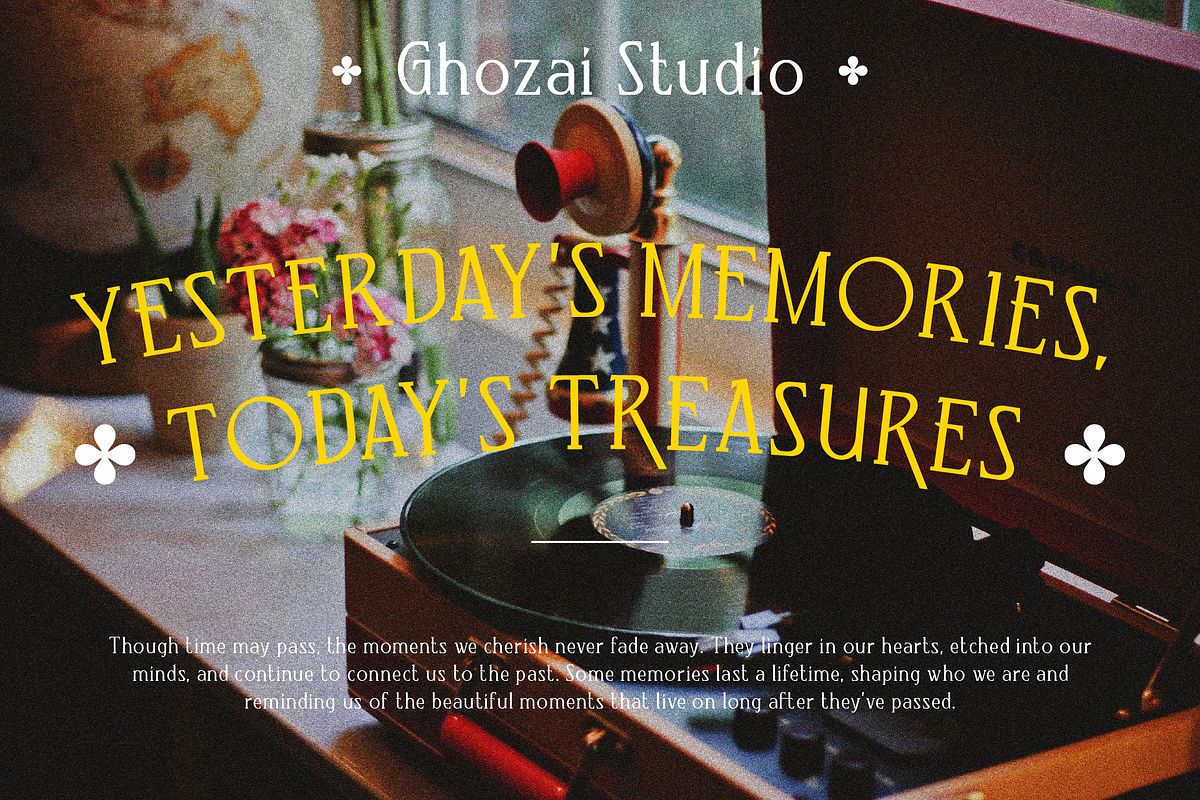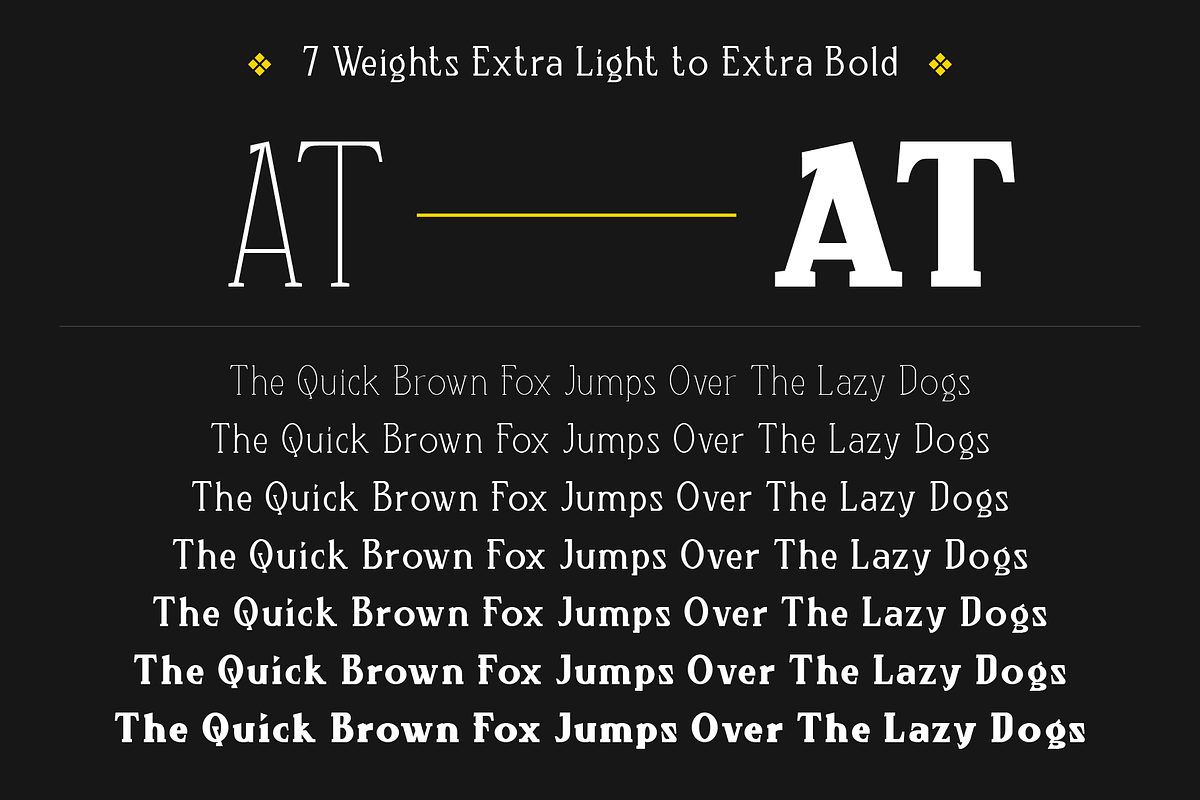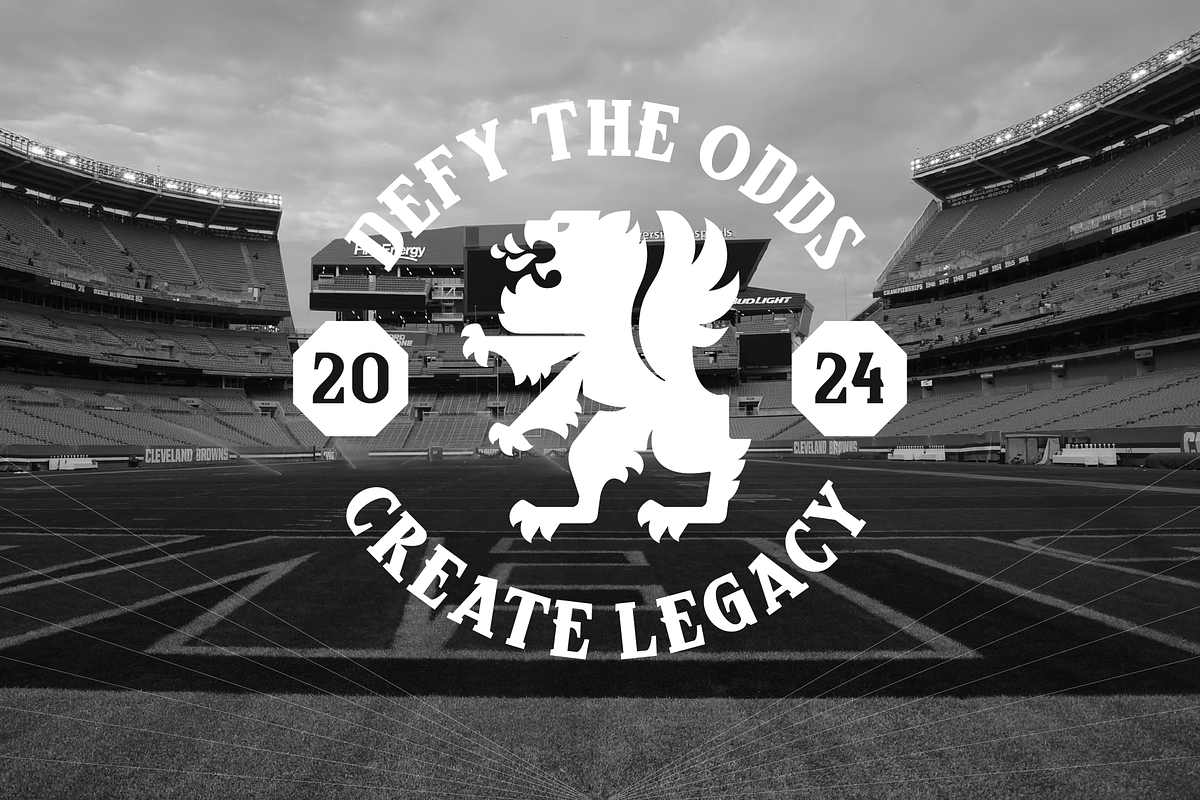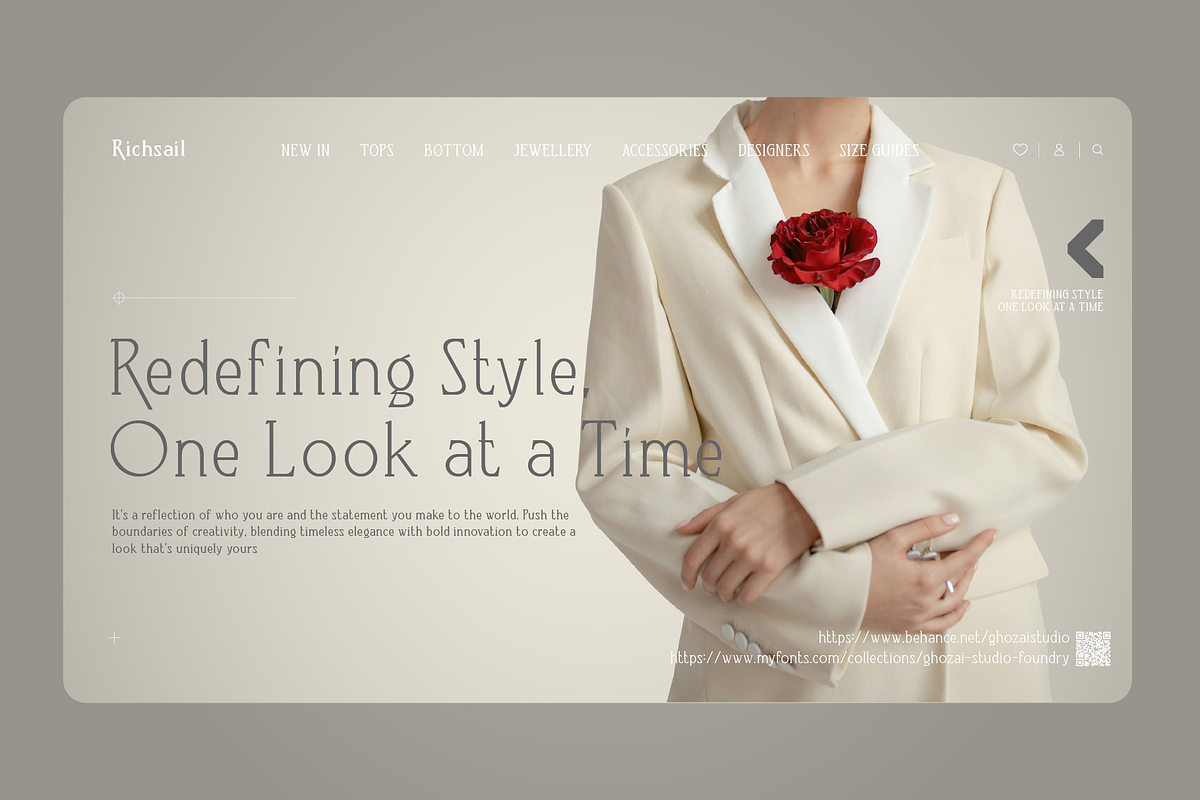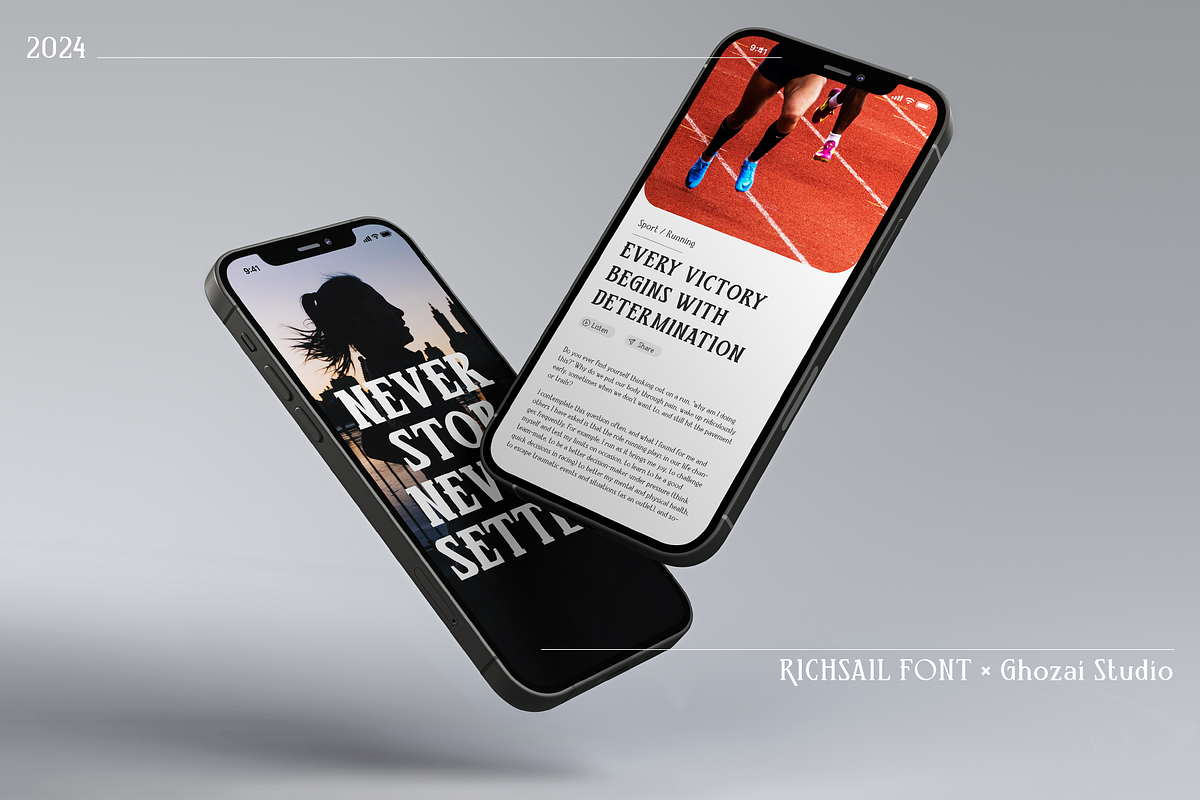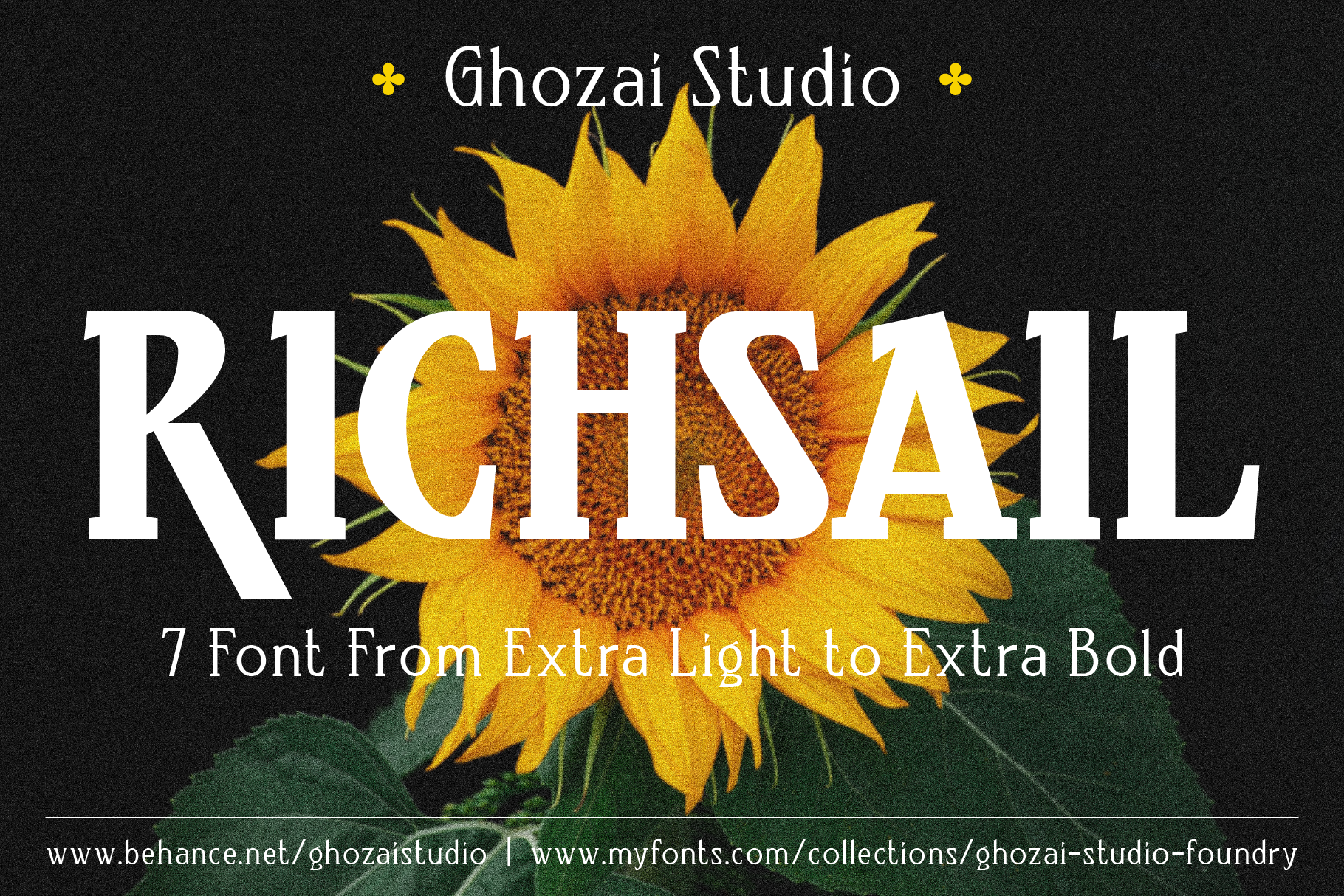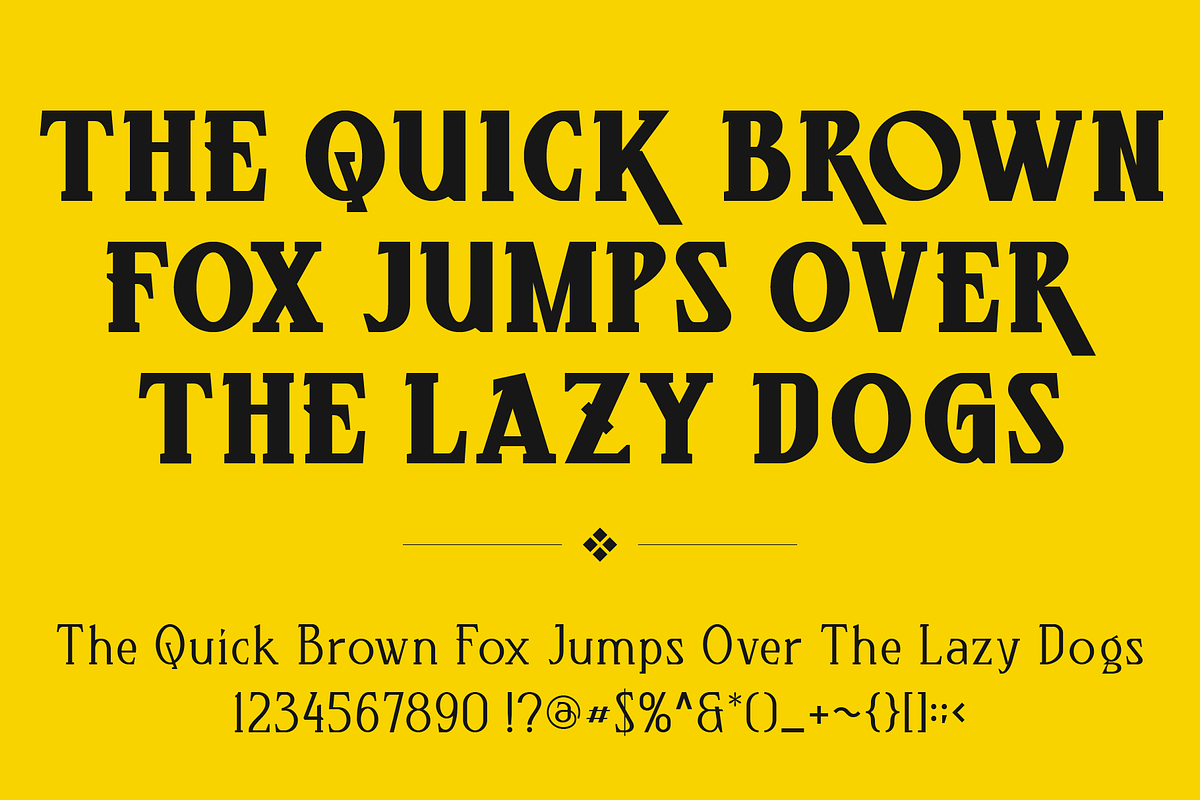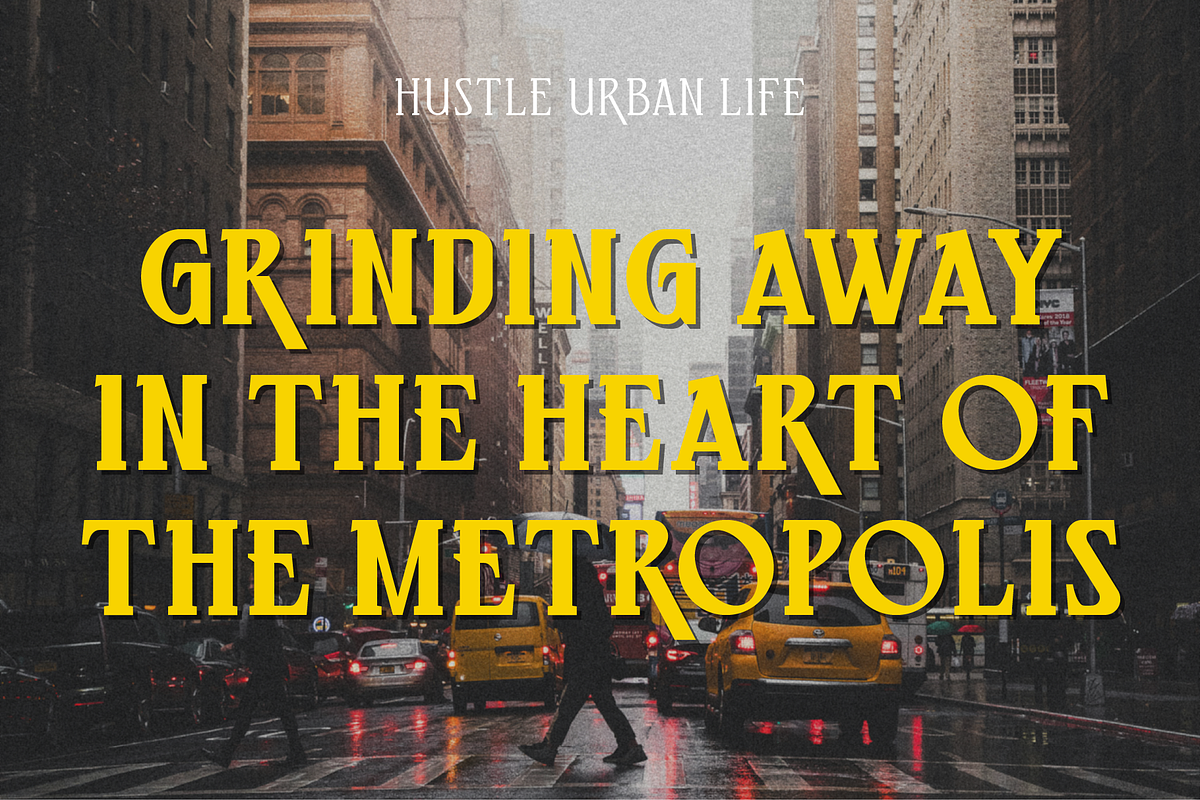
Richsail - Variable font
Richsail is a serif font that comes with 7 styles. Combining a bold and thin stroke to give a high contrast and personality for the font, and bring fresh, lively features to its design. With a wide range of styles, ligature, and stylistic alternates features, Richsail is suitable for any design project such as luxury design (hotel logo, restaurant menu, wedding invitation), fashion, band poster, headline, sport-related designs, and many others.
Packed with 300+ glyphs for each style (multilingual characters included)
Multilanguage supported
OpenType feature (Ligature, Stylistic Alternates, Numerator, Denominator, Fraction and more)